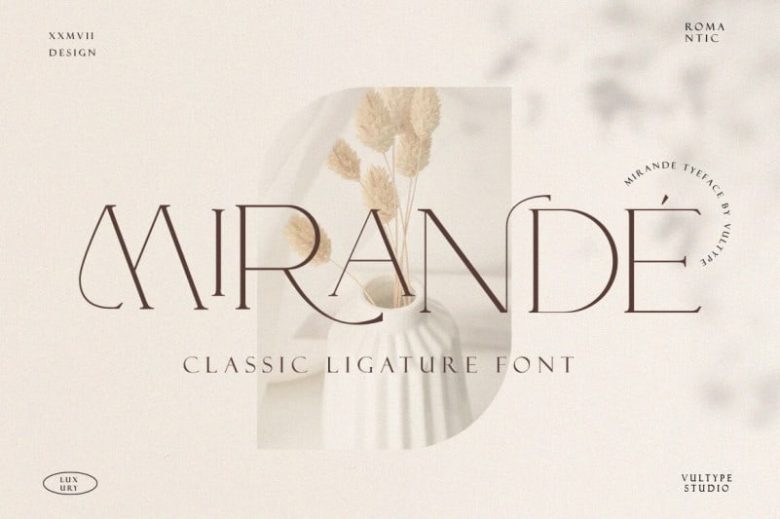
Mirande Font
Mirande Serif Font is a new modern typeface with upper and lowercase is complemented by some of the same alternatives made with love. A minimal contrast look that has been synonymous with fashion for decades. This font is both modern and nostalgic and works great for logos, mastheads and pull quotes. It pairs beautifully with a minimal sans serif or light script font.